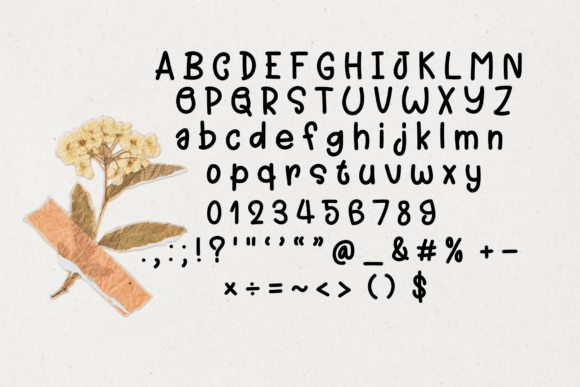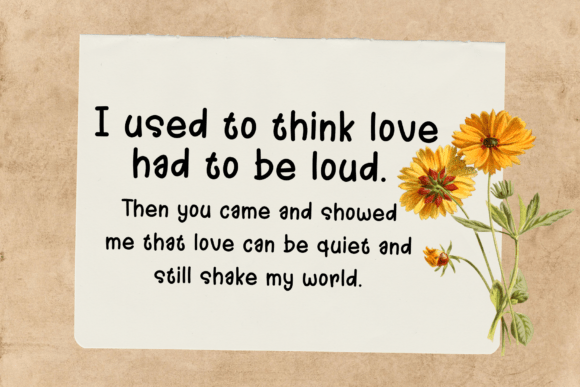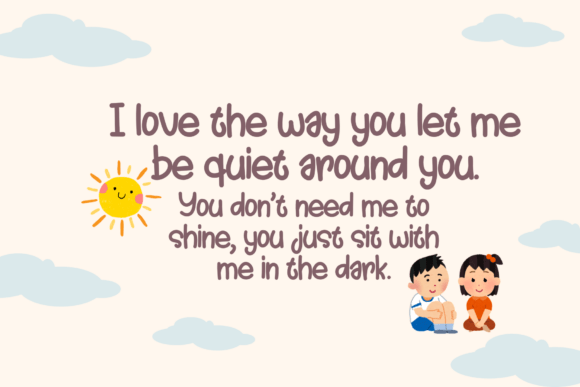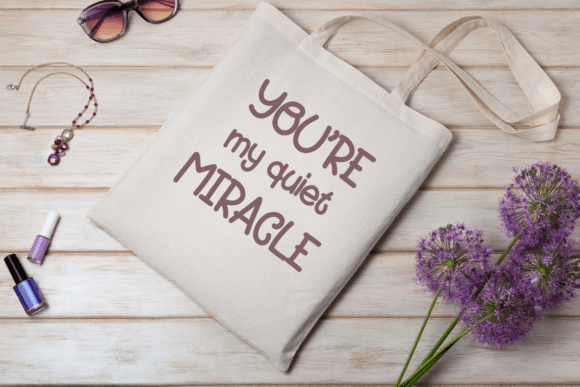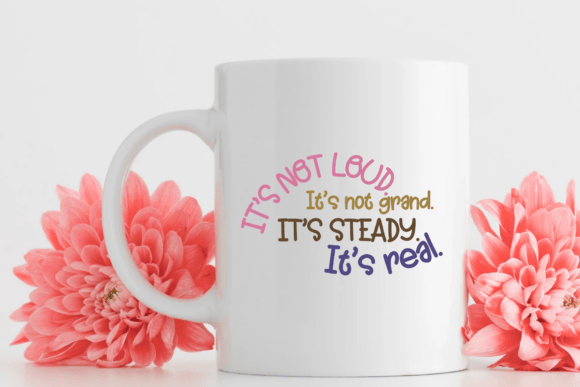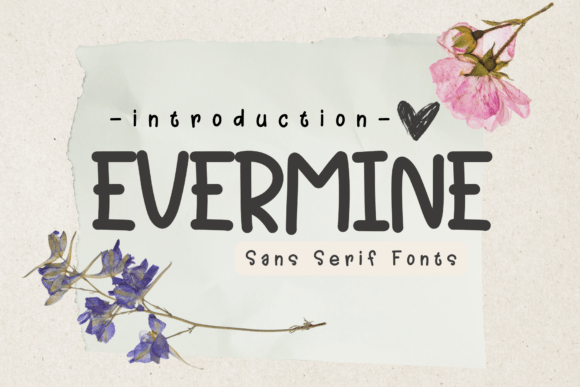
Discover the Versatility of Evermine Font: A Sans Serif Delight
Are you a designer, crafter, or simply a creative individual looking for the perfect font to bring your projects to life? Look no further than Evermine Font, a stylish sans serif font that is sure to become your new go-to. In this article, we’ll dive into the world of Evermine Font, exploring its features, uses, and benefits, and why it’s a must-have for any creative enthusiast.
What is Evermine Font?
Evermine Font is a modern sans serif font designed to be clean, crisp, and highly legible. Its sleek lines and minimalist aesthetic make it perfect for a wide range of applications, from everyday writing to creative projects. Whether you’re taking notes, writing a diary, or crafting greeting cards, Evermine Font is the ideal choice.
Uses of Evermine Font
One of the best things about Evermine Font is its versatility. While it’s perfect for:
- Taking notes: Keep your notes organized and easy to read with Evermine Font’s clear and concise style.
- Writing a diary: Add a touch of elegance to your personal journal with this beautiful font.
- Making greeting cards: Create stunning cards for special occasions, such as birthdays, weddings, and holidays.
It’s also great for a variety of other design projects, including:
- Banners: Grab attention with eye-catching banners that showcase your message in style.
- Content creation: Use Evermine Font to add a professional touch to your blog posts, articles, and website content.
- Mugs: Design personalized mugs with Evermine Font and make a thoughtful gift or promotional item.
- Cards: Create custom cards for any occasion, from thank-you notes to invitations.
- Shirts: Design stylish apparel with Evermine Font and make a statement.
- Stationery: Elevate your stationery game with Evermine Font and add a touch of sophistication to your letters and correspondence.
- Social media posts: Use Evermine Font to create engaging and visually appealing social media posts that stand out from the crowd.
Benefits of Using Evermine Font
So, why choose Evermine Font for your creative projects? Here are just a few benefits:
- Legibility: Evermine Font is designed to be highly legible, making it perfect for reading and writing.
- Versatility: Use Evermine Font for a wide range of projects, from personal to professional.
- Elegance: Add a touch of sophistication to your designs with Evermine Font’s sleek and modern aesthetic.
Tips for Using Evermine Font
To get the most out of Evermine Font, here are a few tips:
- Experiment with sizes: Evermine Font looks great in a variety of sizes, from small to large.
- Pair with other fonts: Try pairing Evermine Font with other fonts to create a unique and visually appealing design.
- Use it consistently: Use Evermine Font consistently throughout your design to create a cohesive look.
Evermine Font is a versatile and stylish sans serif font that’s perfect for designers, crafters, and creative individuals of all levels. With its clean lines, elegant aesthetic, and high legibility, it’s ideal for a wide range of projects, from everyday writing to creative designs. Whether you’re looking to add a touch of sophistication to your notes, create stunning greeting cards, or design eye-catching banners, Evermine Font is the perfect choice. So why wait? Discover the versatility of Evermine Font today and take your creative projects to the next level!